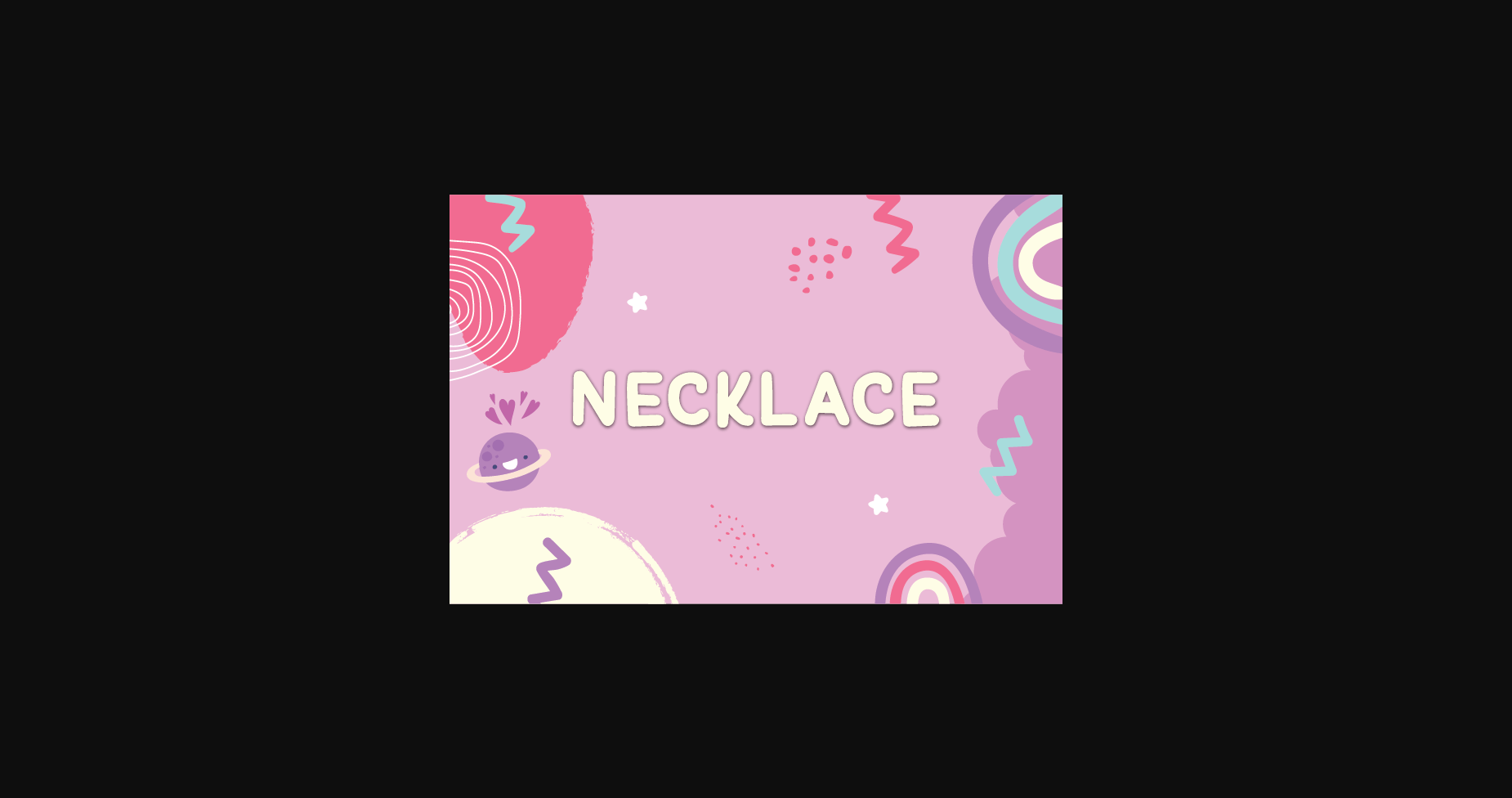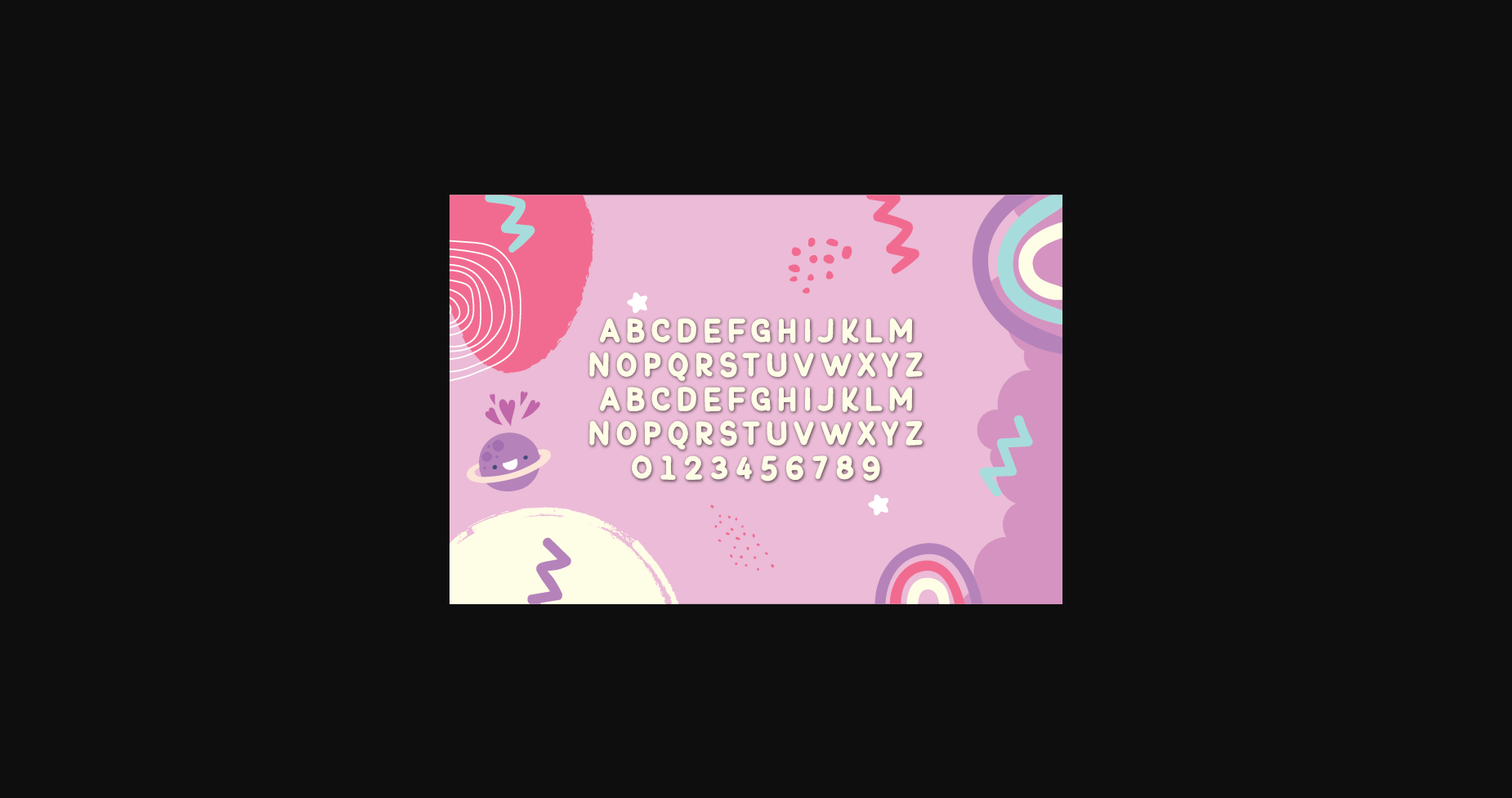
Necklace Font
About Necklace Font
Necklace is a natural sans serif font made without changing a single node in each character’s indentation- this makes this font very interesting and unique. Perfect for quotes, notes, tees, and any product design.